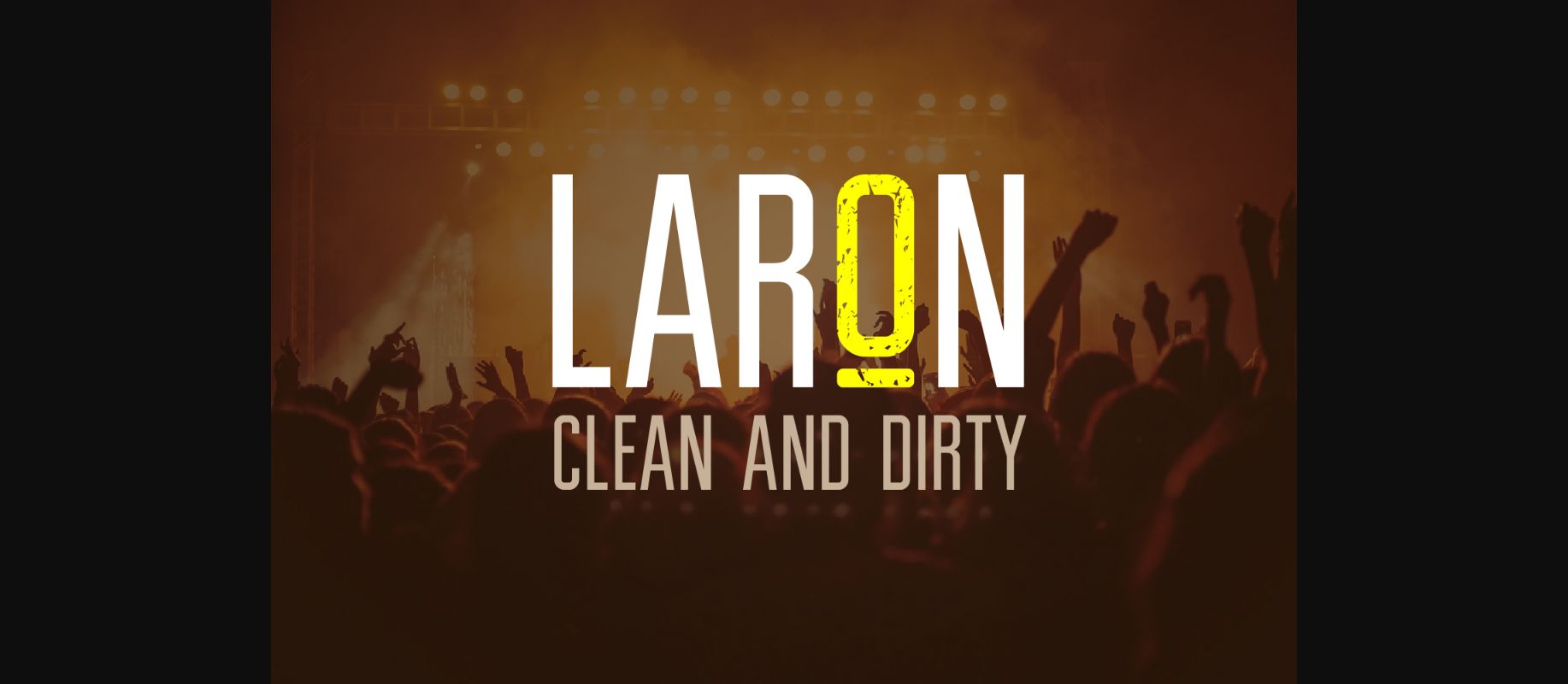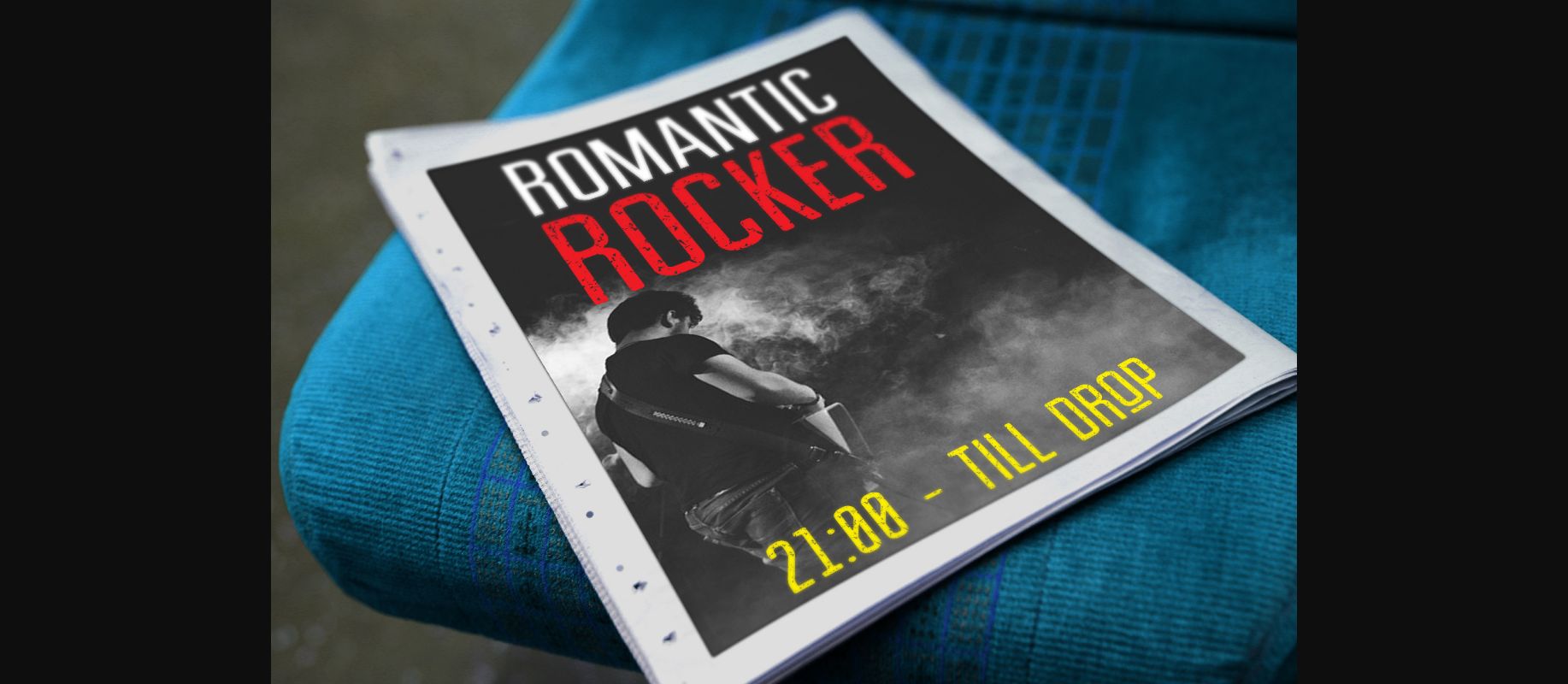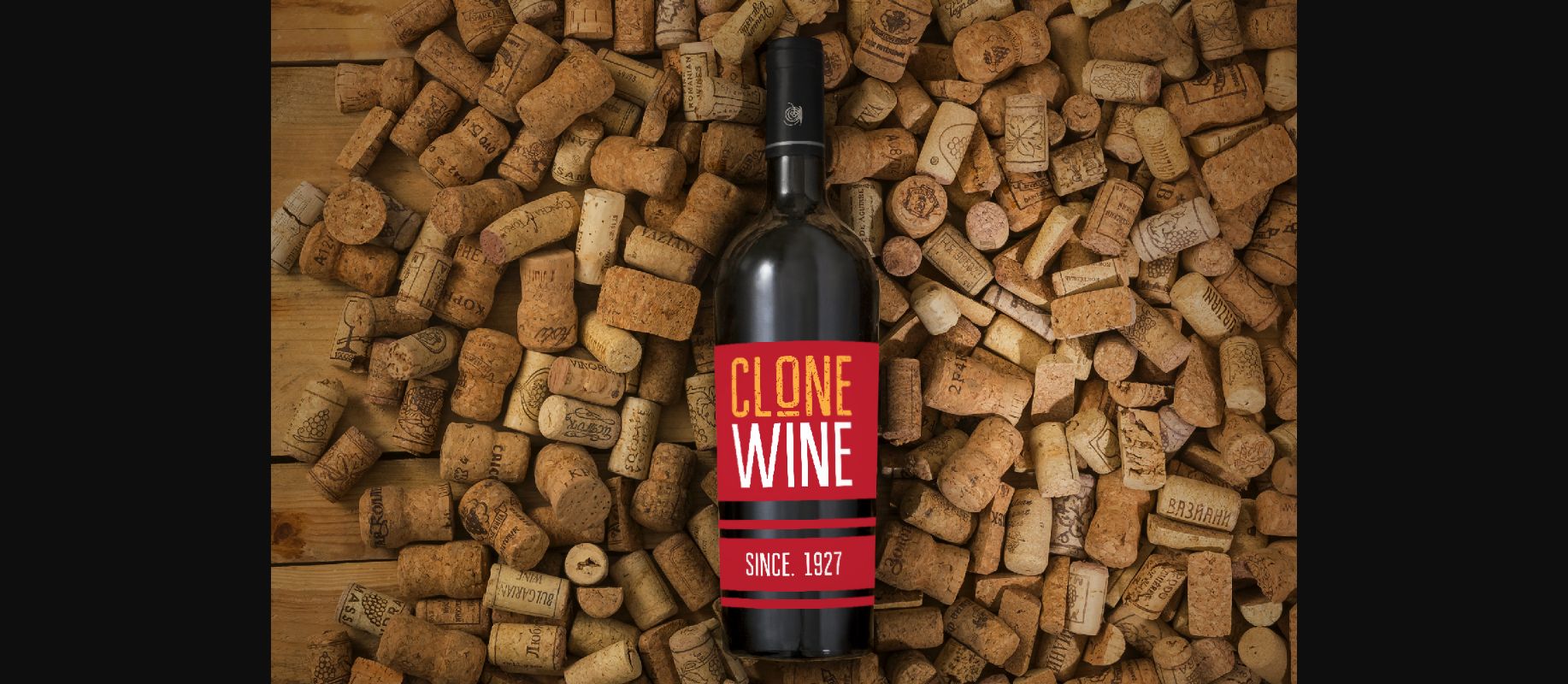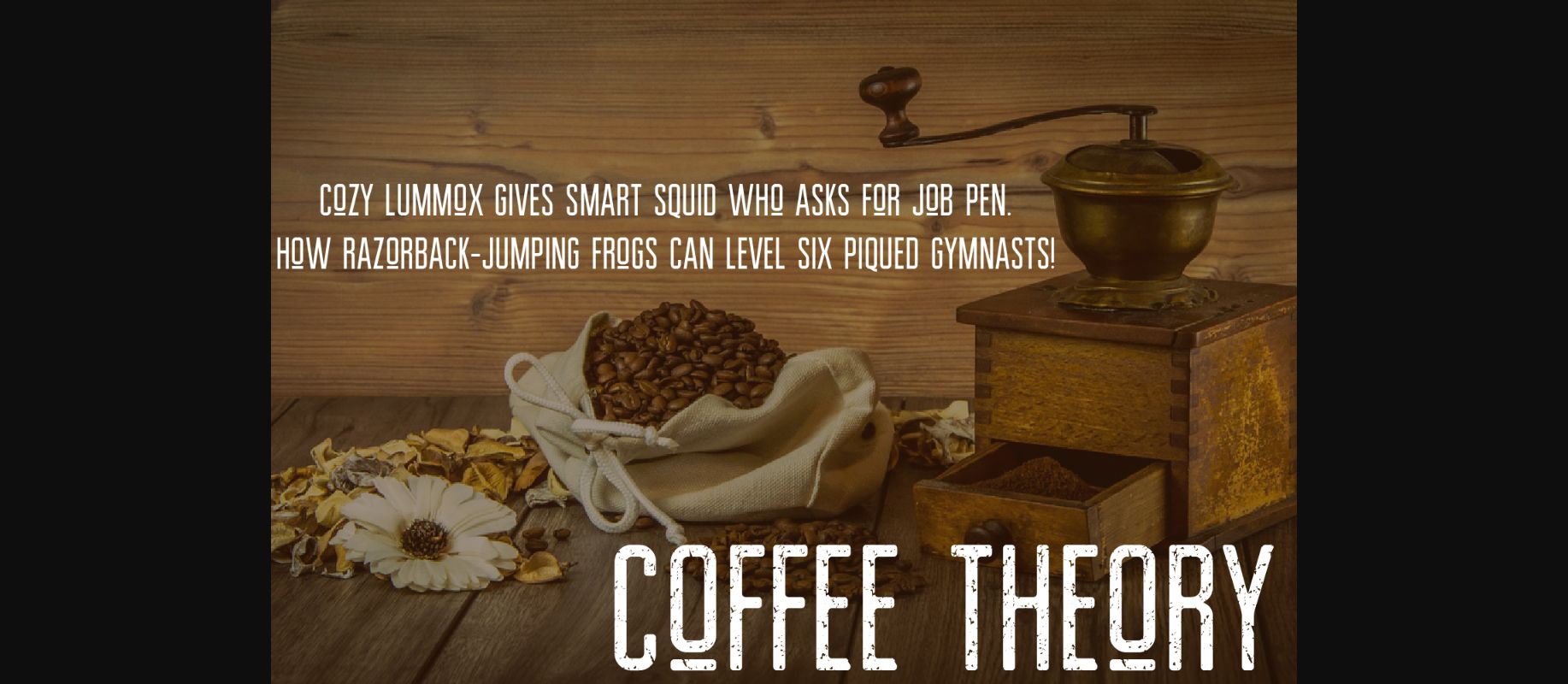
Laron Font
About Laron Font
Laron is a highly legible font with soft rounded corners. Modern and elegant, it’s perfectly suited for any design project that requires a retro vibe.